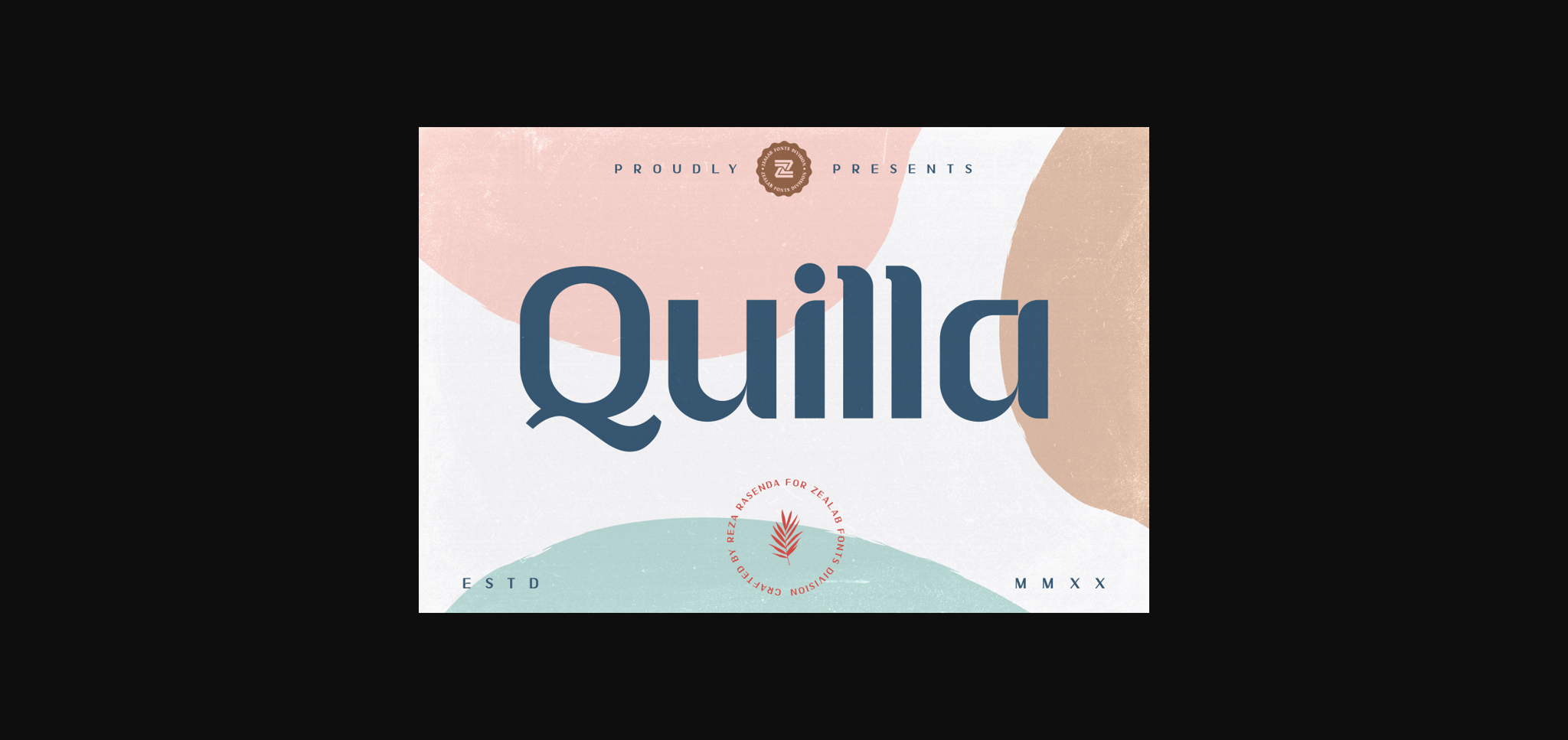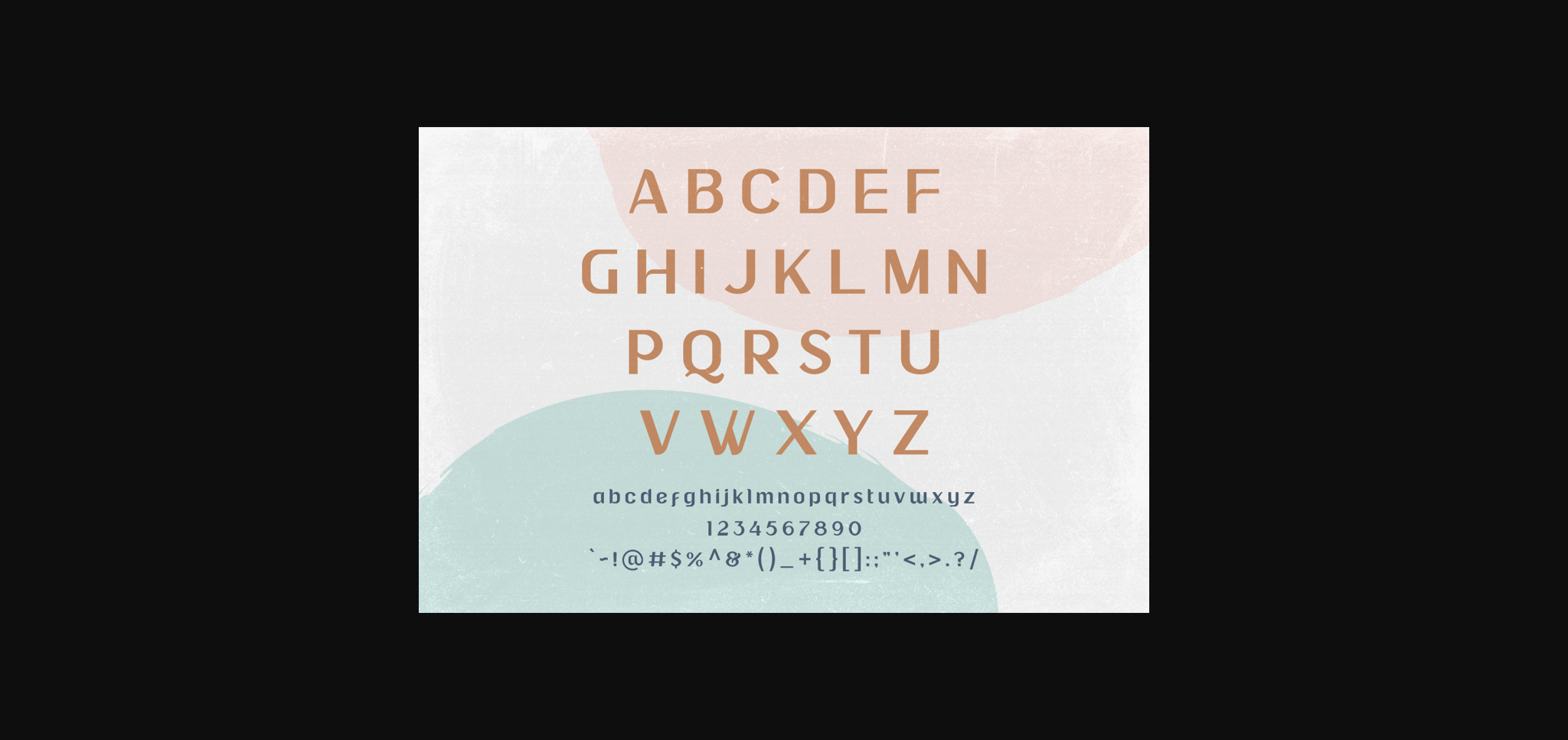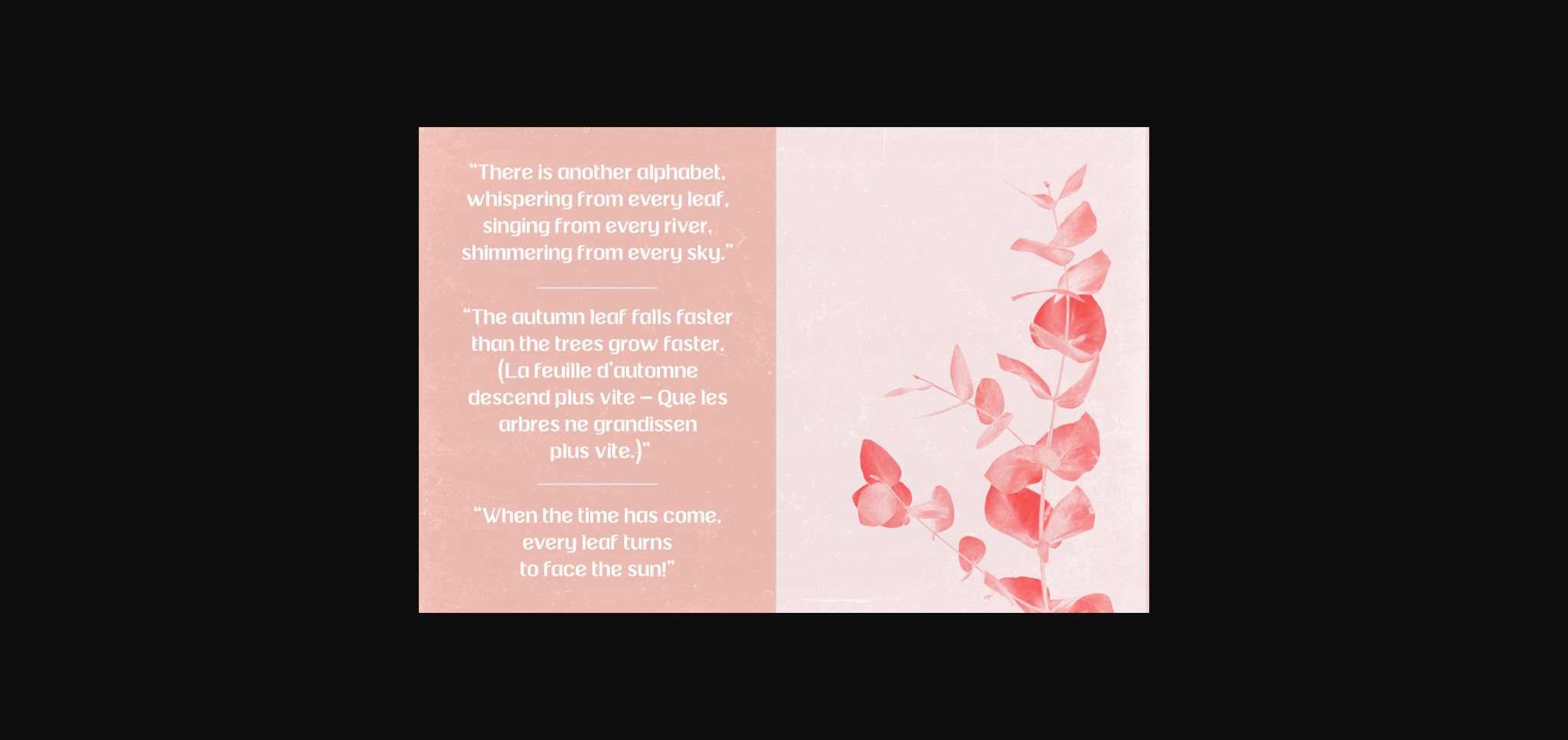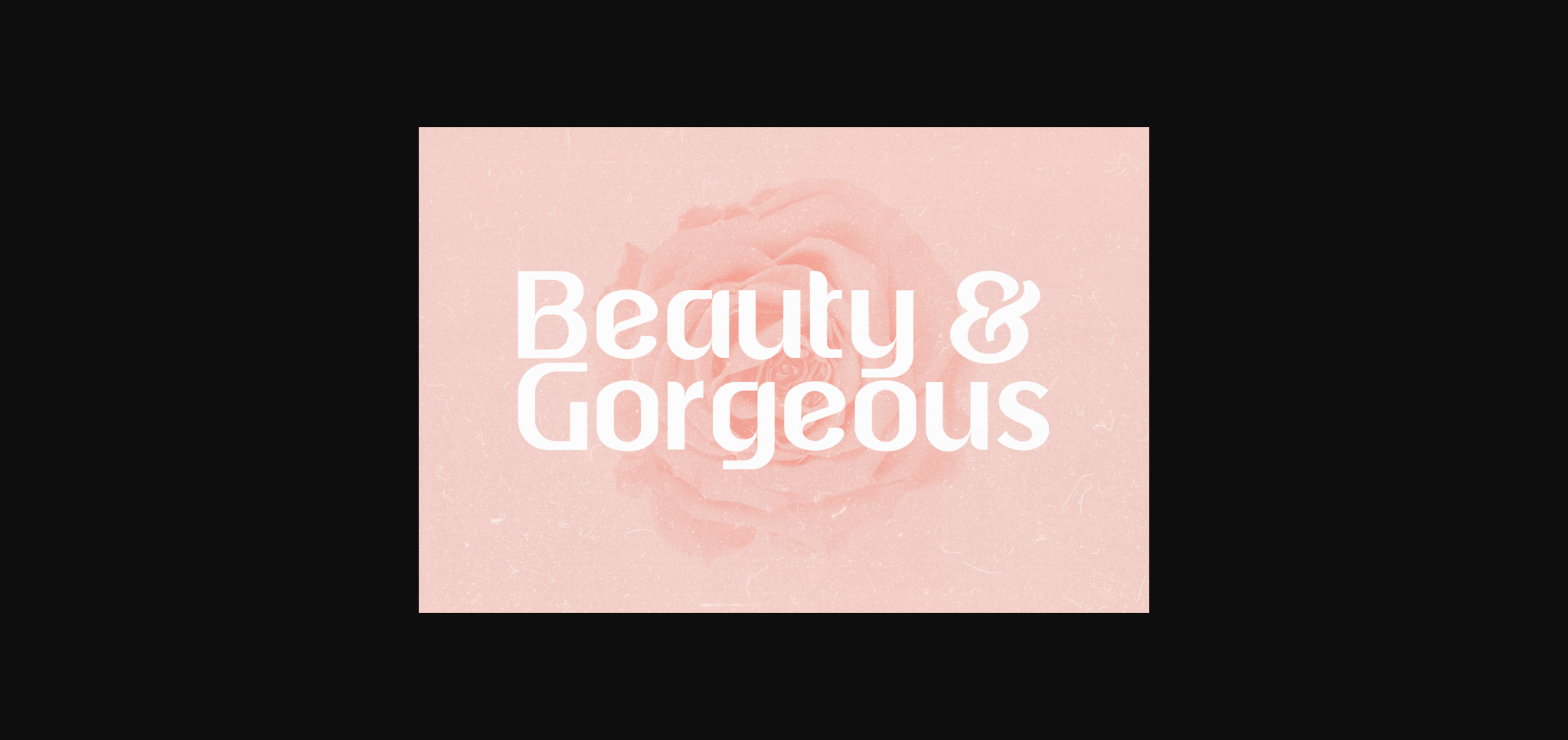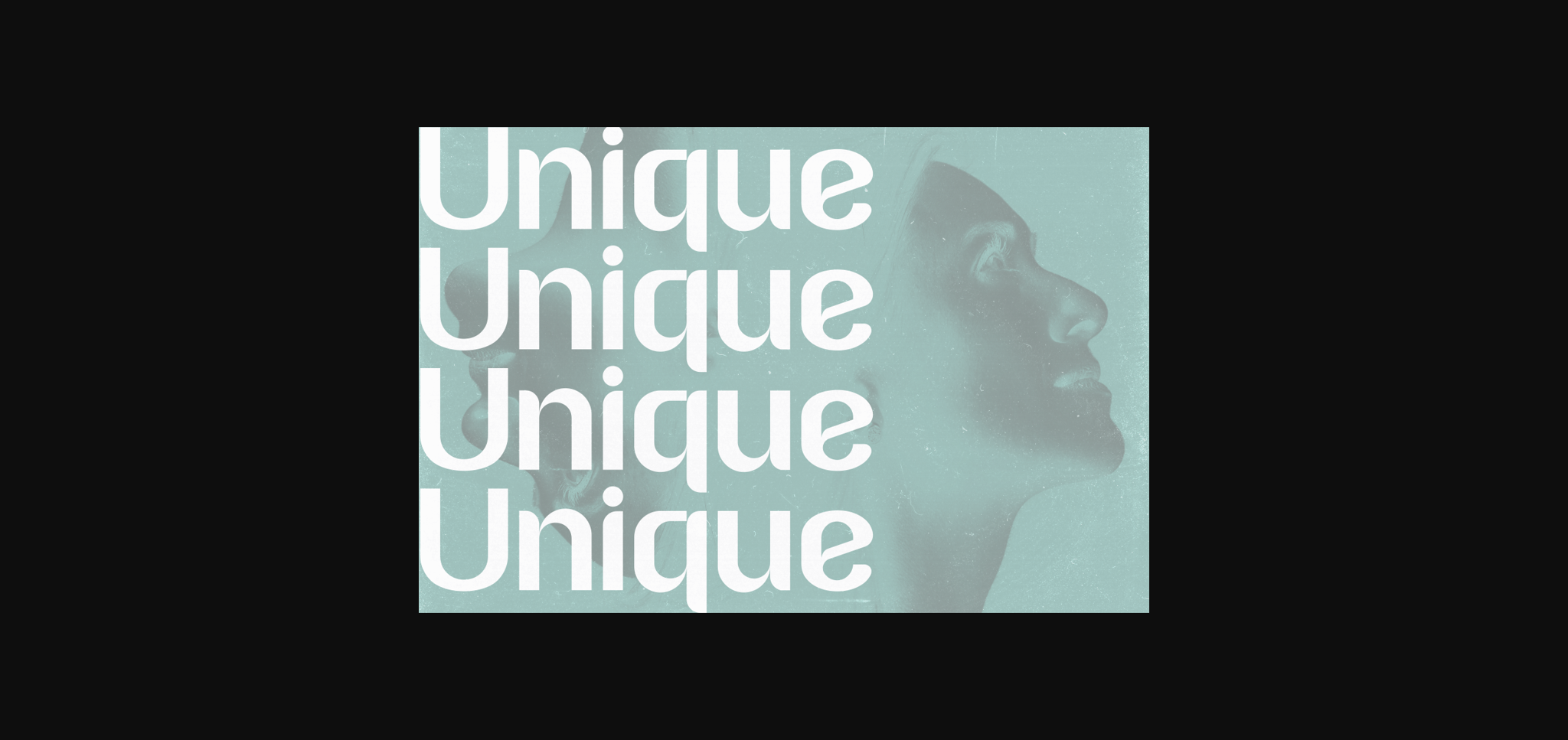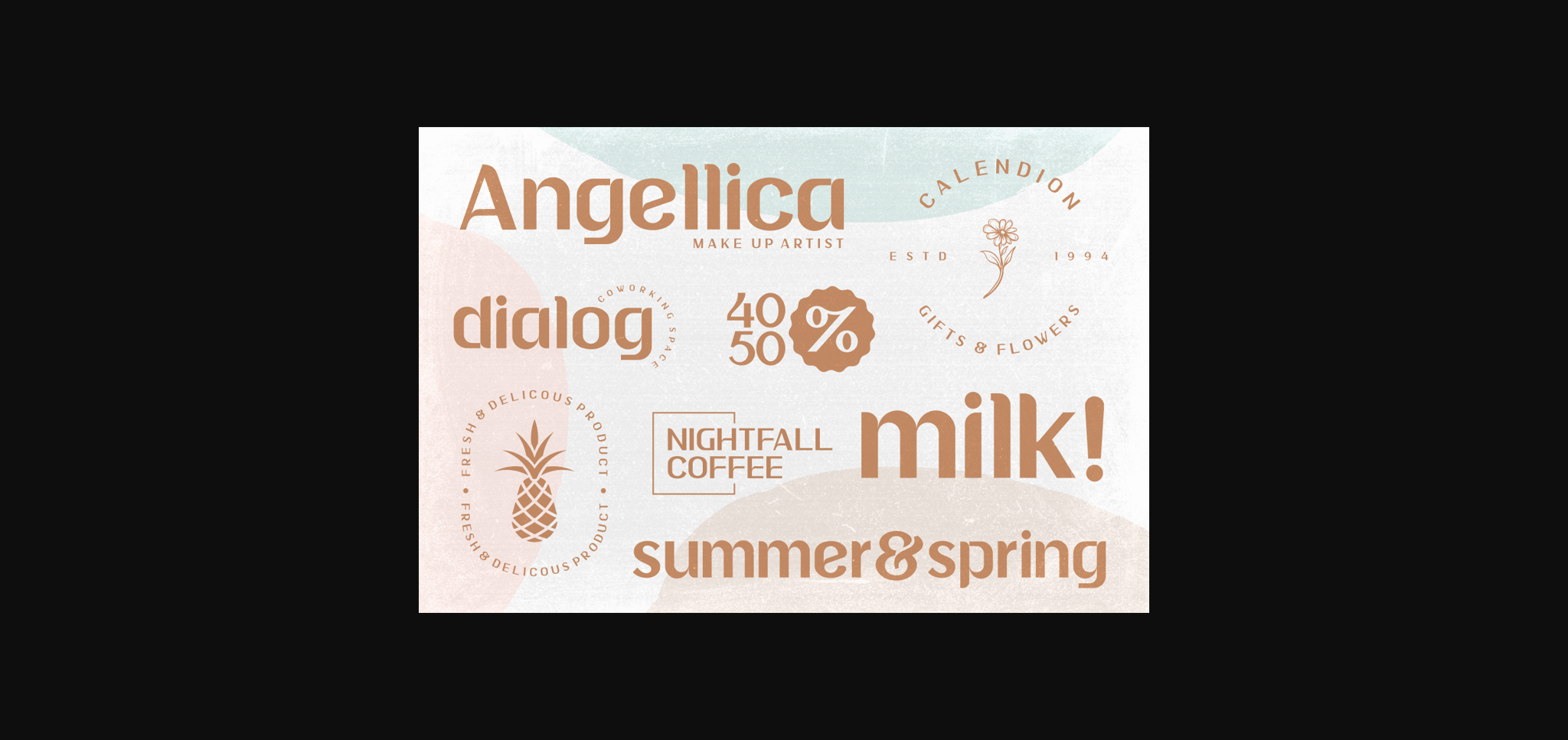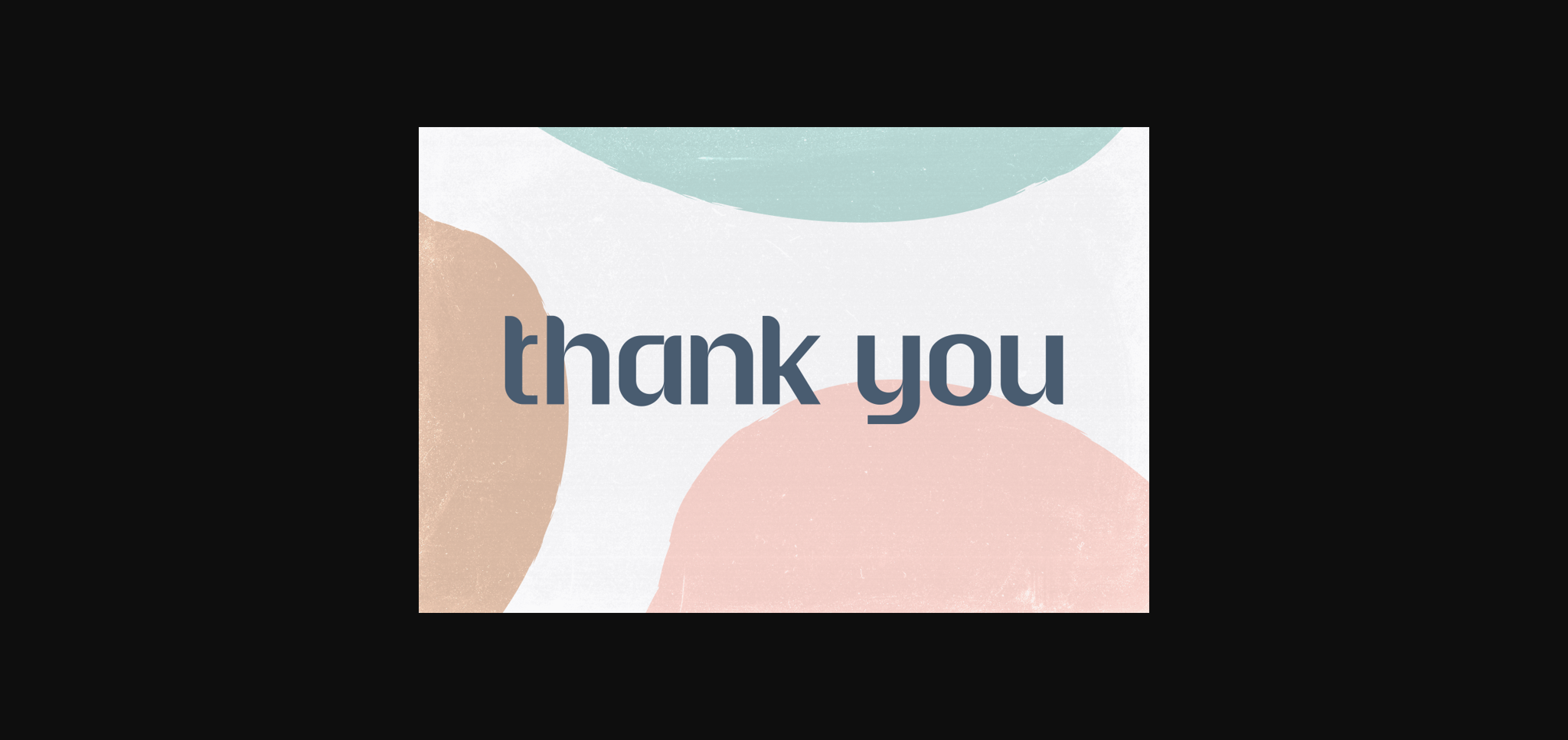
Quilla Font
About Quilla Font
Quilla is a gorgeous sans serif font. It features an incredibly classic style, and a great personality. It will look particularly adept when used in logos, branding, packaging design, and much more. This masterfully designed typeface is a true must-have.